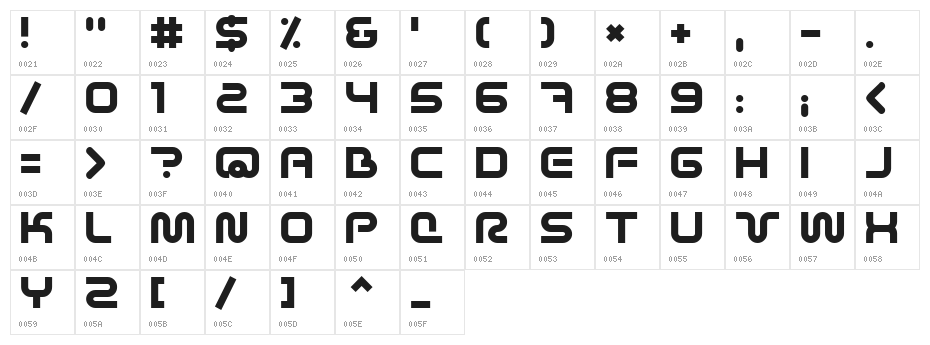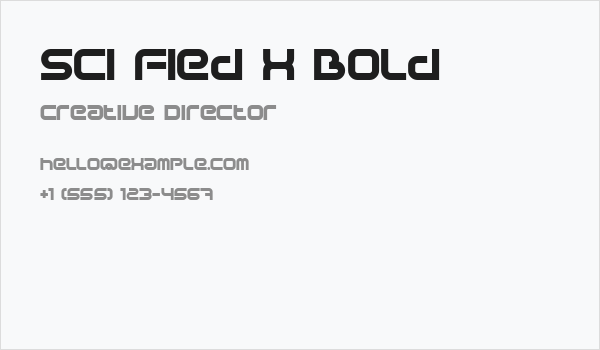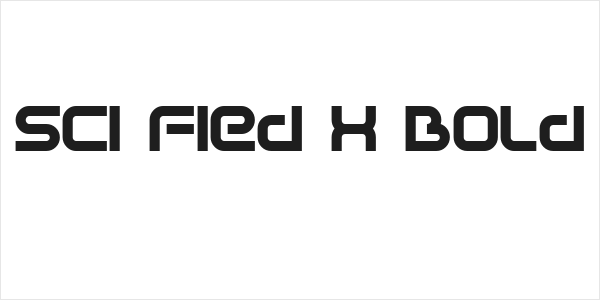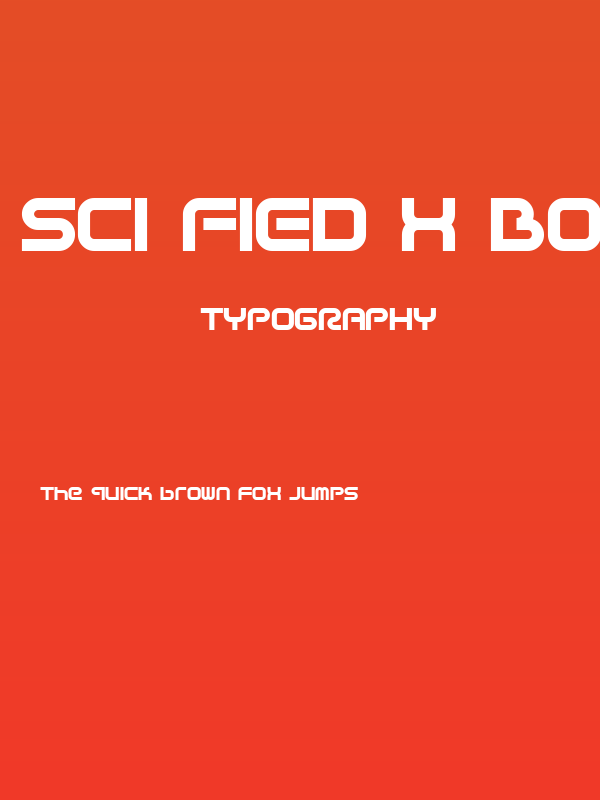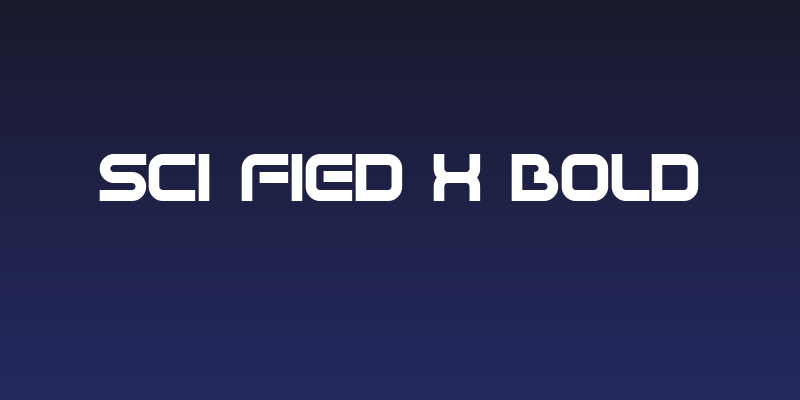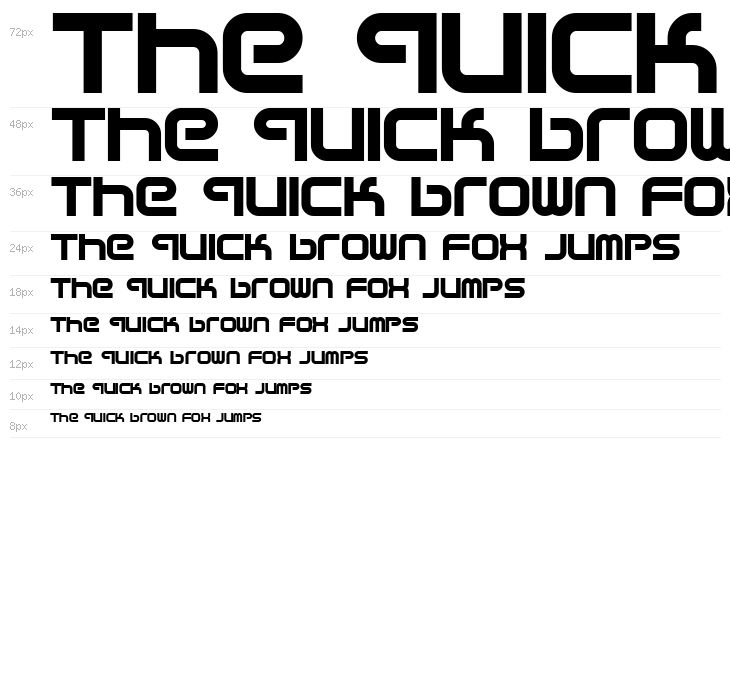
Sci Fied X Bold Font
Sci Fied X Bold Description
This font features a futuristic and bold design, characterized by its geometric and block-like letterforms. The uppercase and lowercase letters share a consistent style, with rounded edges and a uniform thickness that gives a sense of modernity and strength. The numerals are equally bold, maintaining the same geometric aesthetic, making them highly legible and impactful. Special characters are designed with the same attention to detail, ensuring a cohesive look across all glyphs. This font's unique style makes it ideal for projects that require a modern and technological feel.
Proposed ProjectsIdeal for sci-fi themed designs, technology branding, video game titles, and futuristic posters.